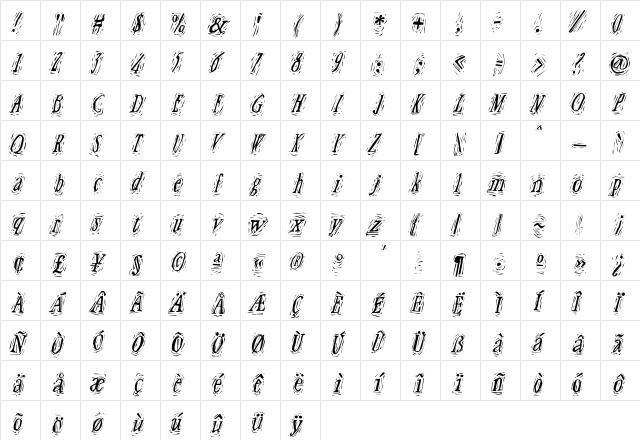
Craft Regular
Design Context for Craft Typeface
Craft is a composed and adaptable typeface that performs quietly and consistently across a wide range of design contexts.